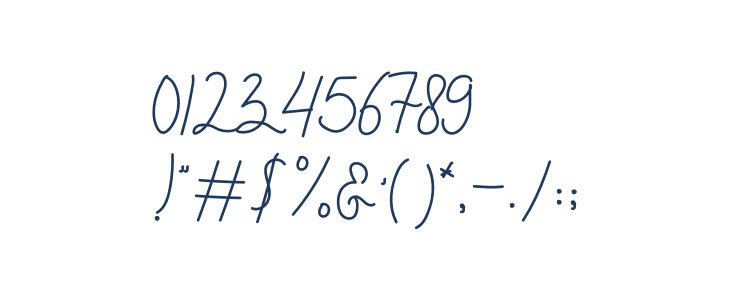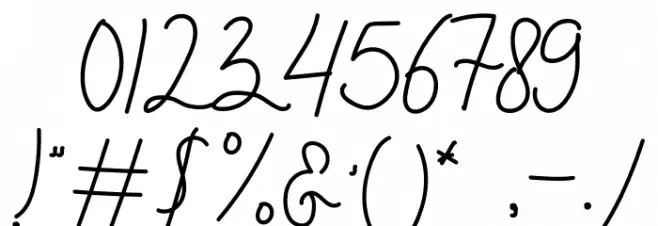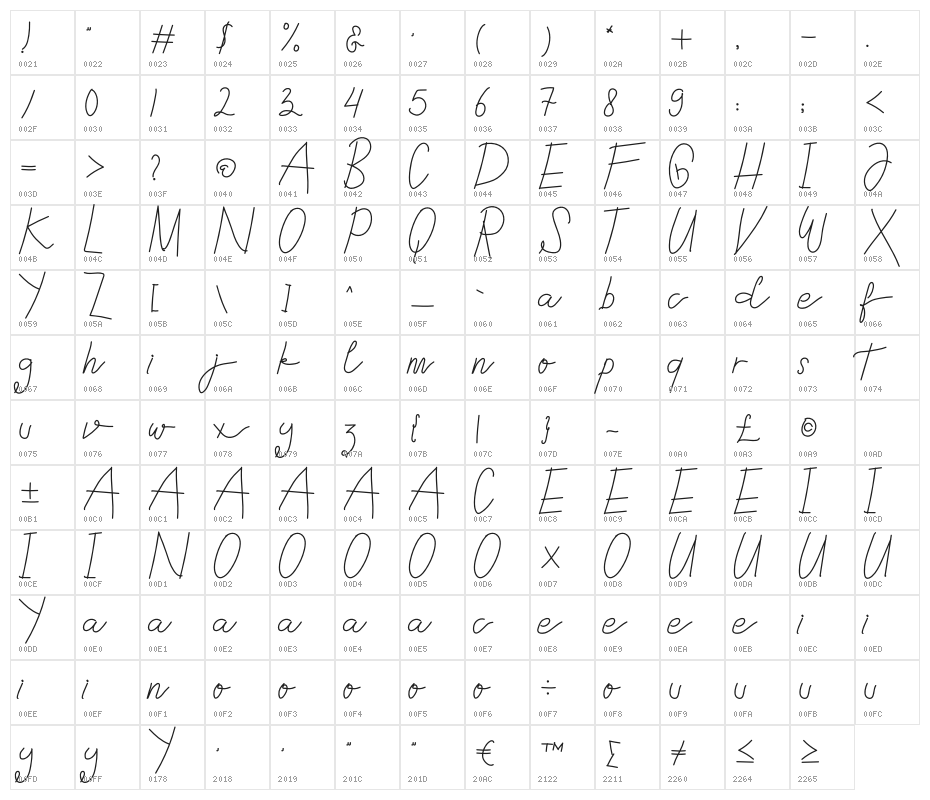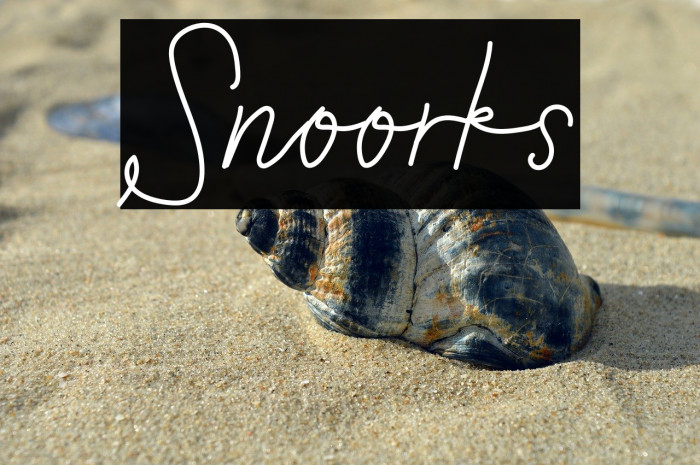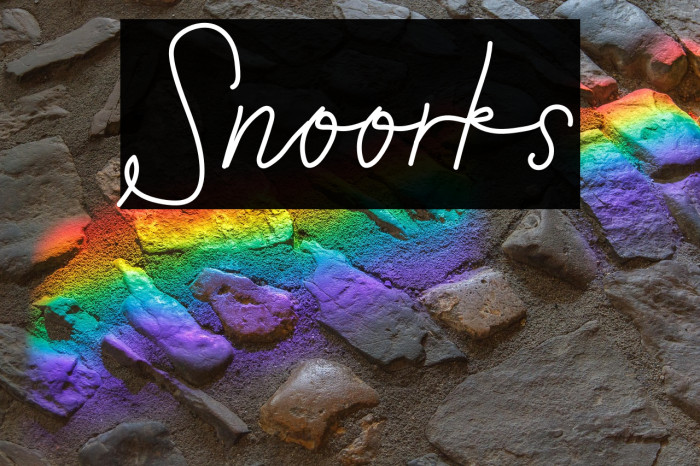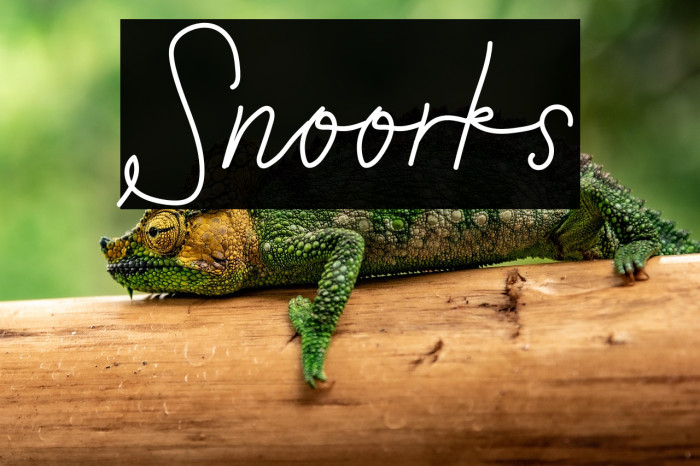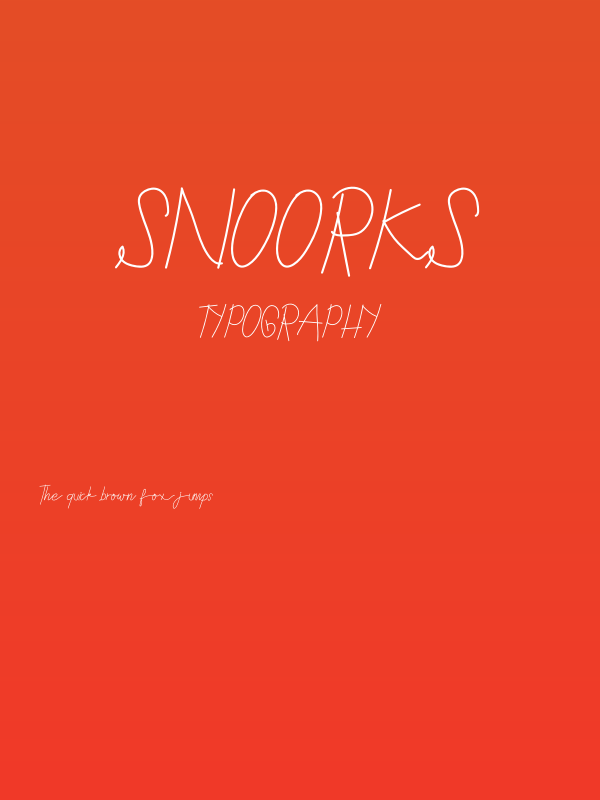
Snoorks Font
Snoorks Description
This font features a playful, handwritten style with a casual and whimsical appearance. The letters are elongated and slightly tilted, giving them a dynamic and lively feel. The strokes are thin and consistent, with a smooth flow that mimics natural handwriting. The uppercase letters are tall and narrow, while the lowercase letters have a more relaxed and flowing form. Numbers and special characters maintain the same playful aesthetic, making the font versatile for creative projects.
A playful, handwritten font with a whimsical and dynamic style from Regular fonts.
- Proposed Projects: Ideal for greeting cards, children's books, casual invitations, and creative branding.
- Overall Style: Casual, Playful
- Use Case: Headlines, Creative projects, Informal text